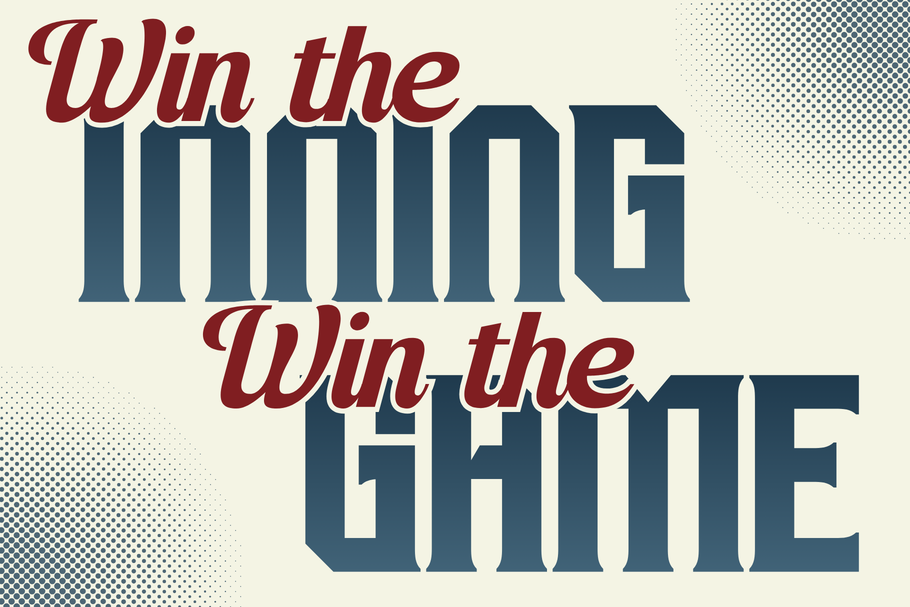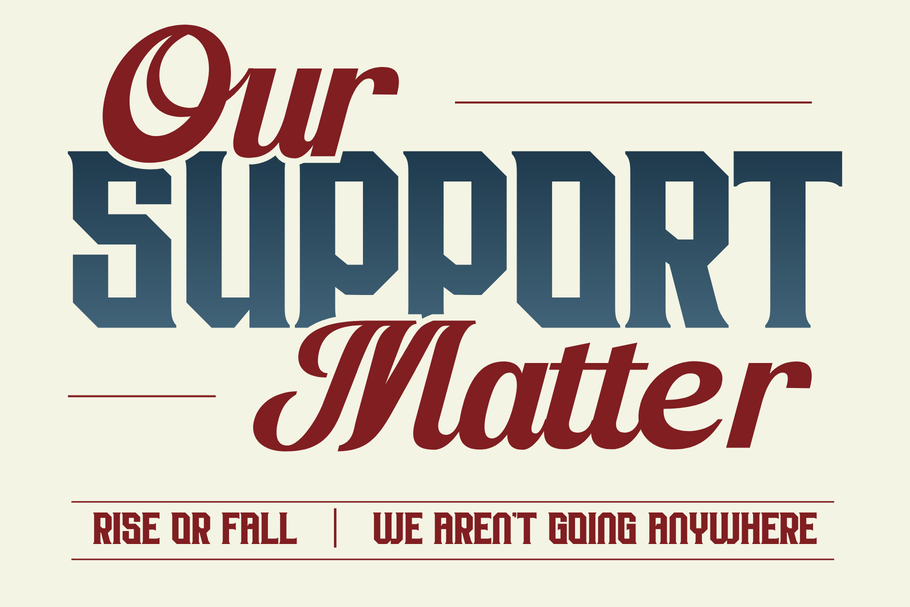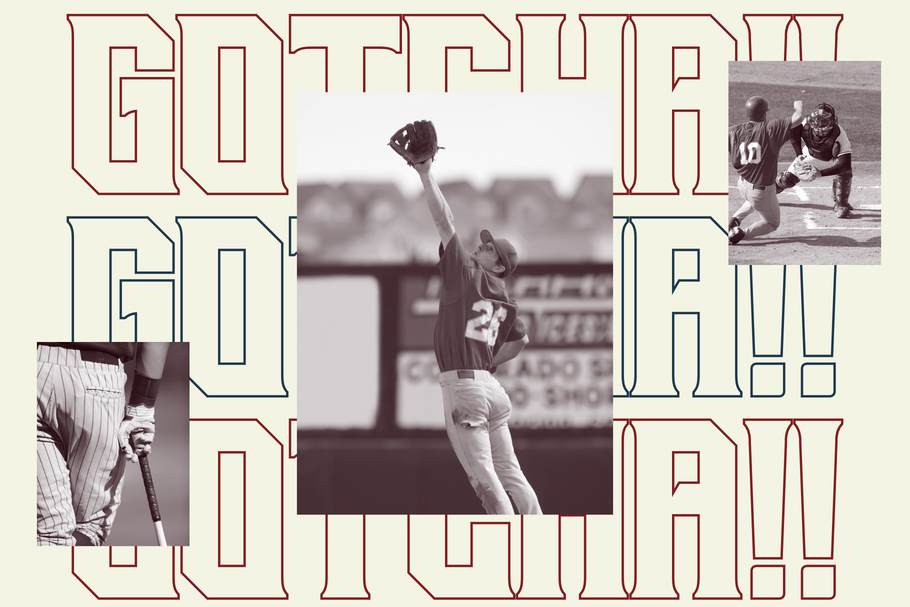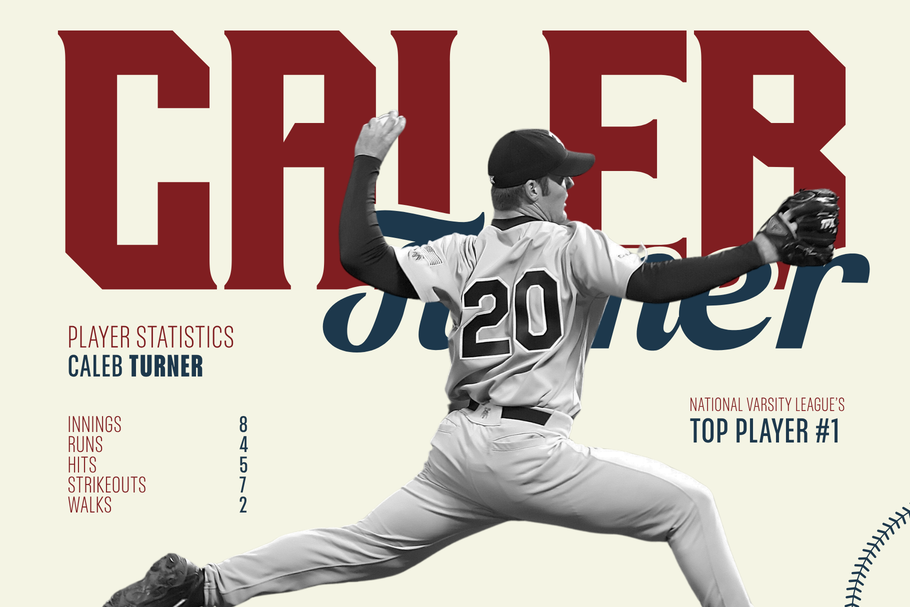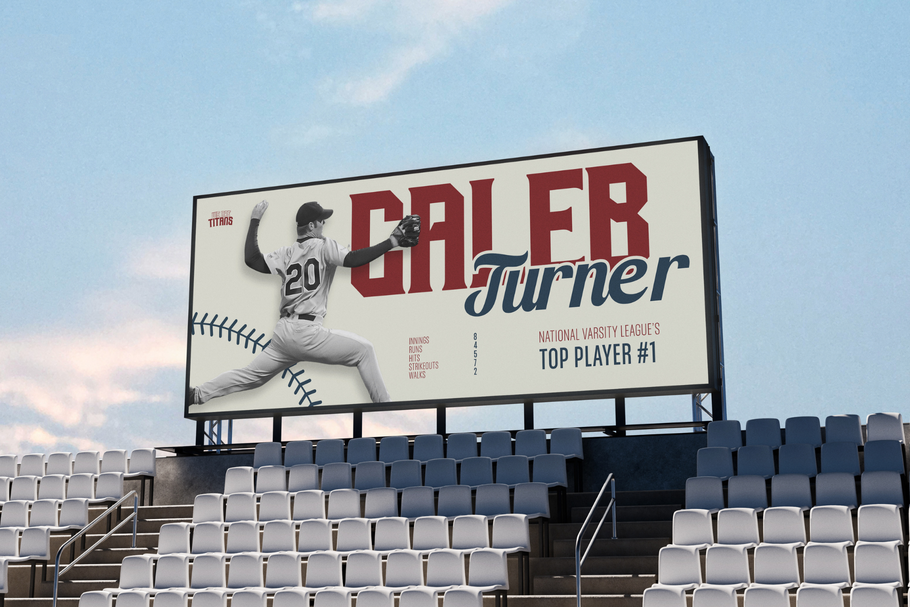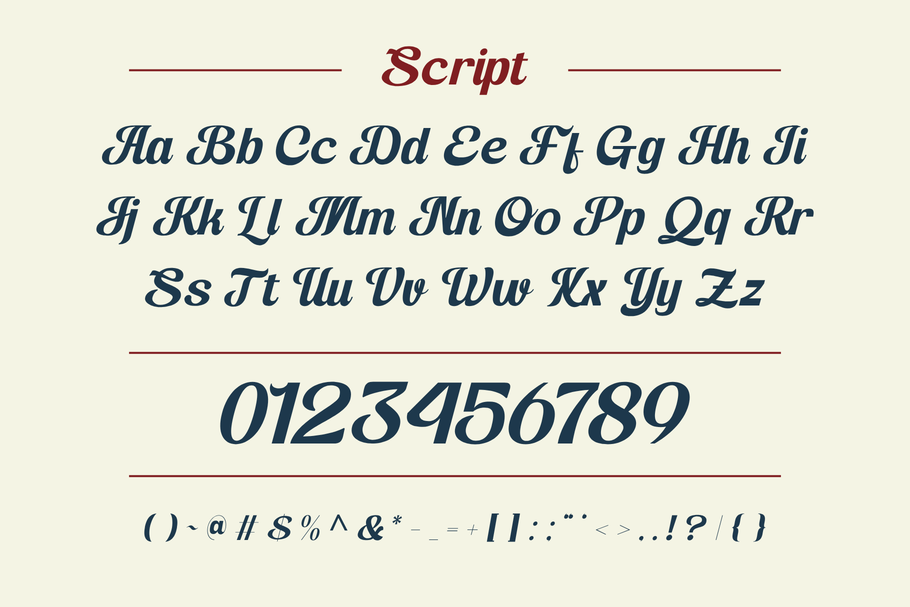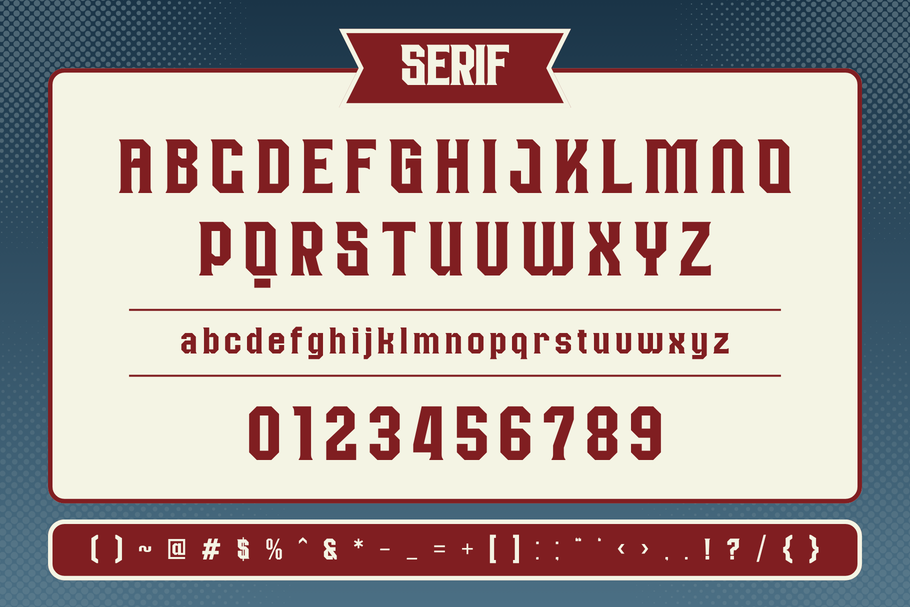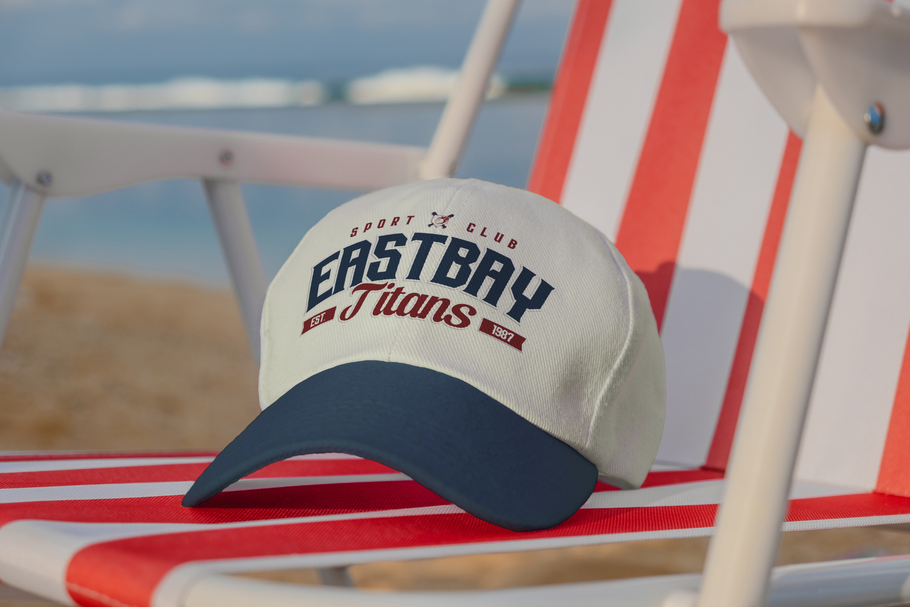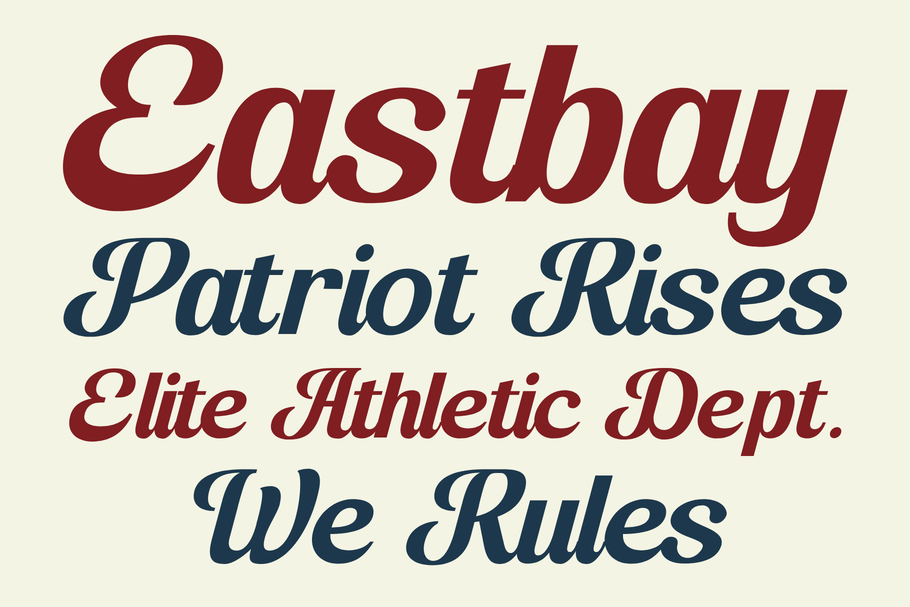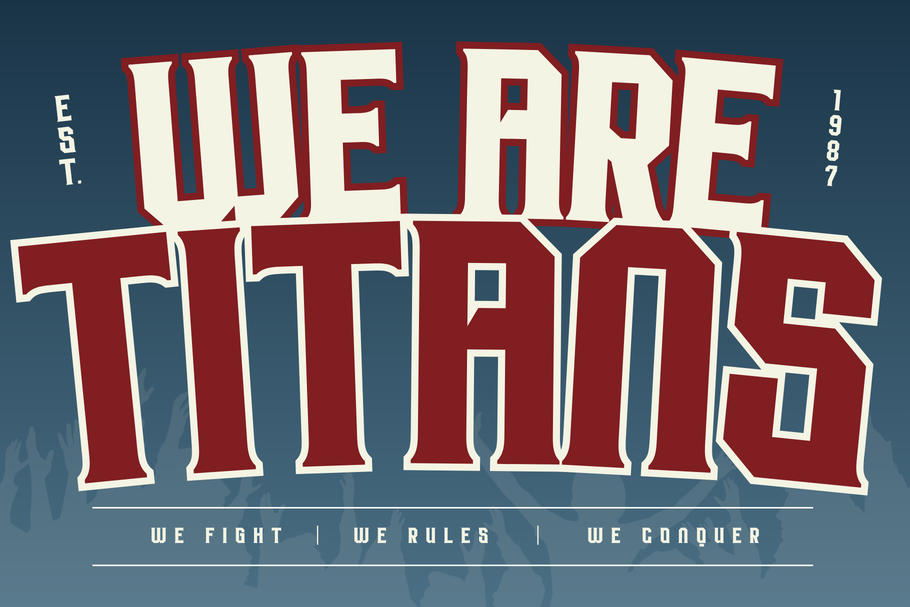
Strikies Sports offers beautiful typographic harmony for a diversity of design projects, including logos & branding, social media posts, advertisements & product designs.